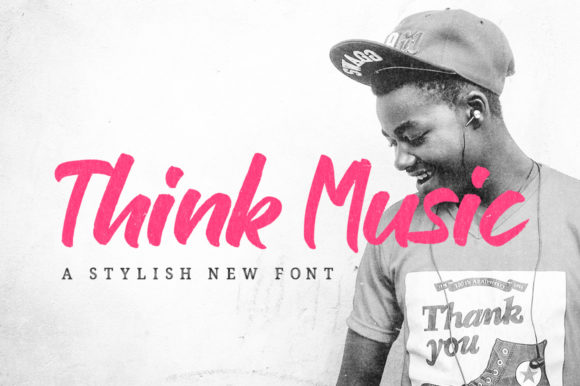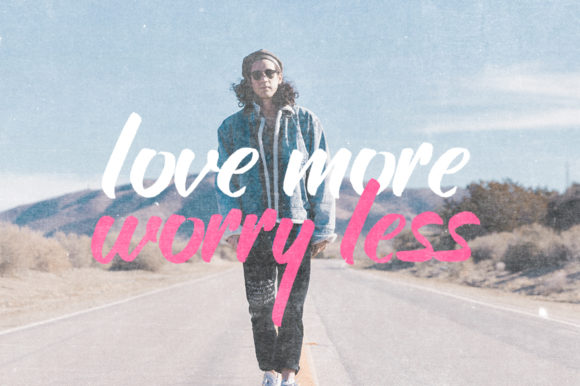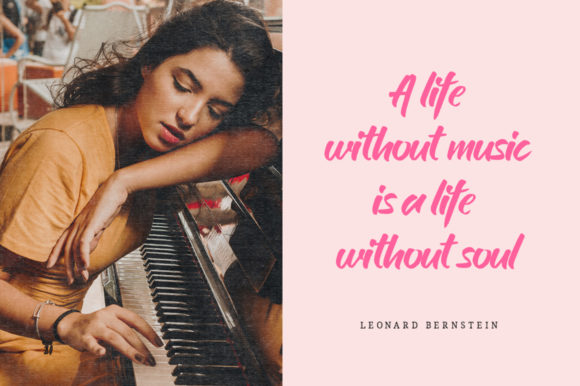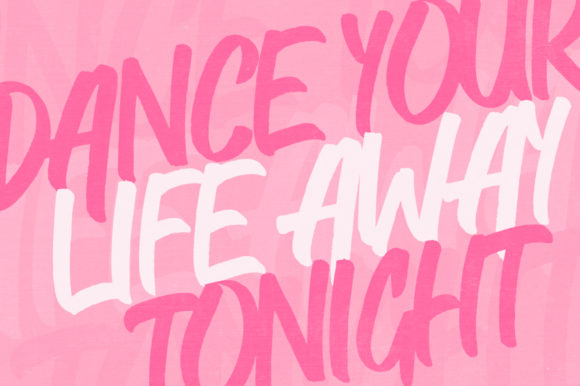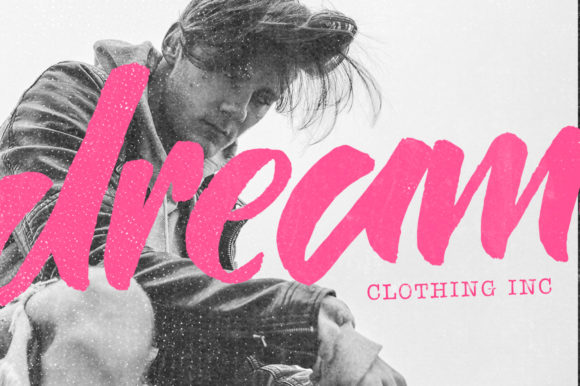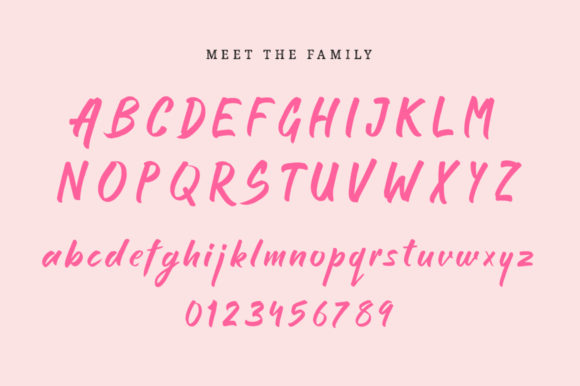
Think Music Font
About Think Music Font
The Think Music is an amazing font from Salt and Pepper Design.
It’s a thick brush font inspired by the chunkier scripts.
Let this melody of a font transport your designs to a higher sound (yeah, we don’t get that either!) or just use this because you love it and it’s rad!